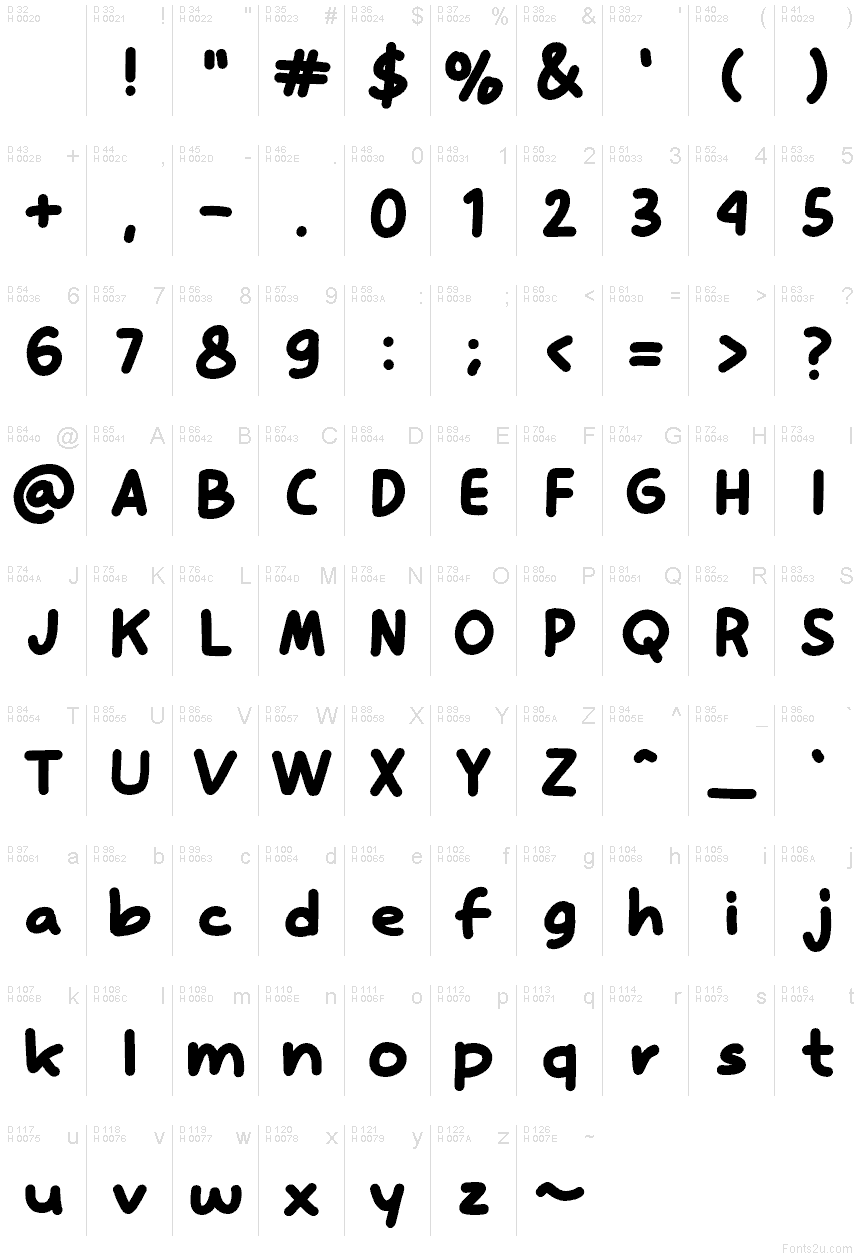
Still Stronger
Still Stronger font by Origin Type is a free handwritten typeface that feels bold, bouncy, and reassuring all at once. Its rounded, slightly chunky strokes look like they were painted with a confident marker, giving every word a soft yet determined energy. The letters sit close and cozy, creating a warm, unified texture that’s easy to read even at smaller sizes while still feeling playful and human.
Using Still Stronger in your work is a natural fit for motivational quotes, self-care branding, children’s book covers, social media posts, product packaging, and friendly logos. This free font shines when you let it speak in short, punchy phrases and pair it with a simple sans serif for supporting text. Set it a bit larger than your usual headline size, and let its rounded rhythm carry the message with optimism and strength.